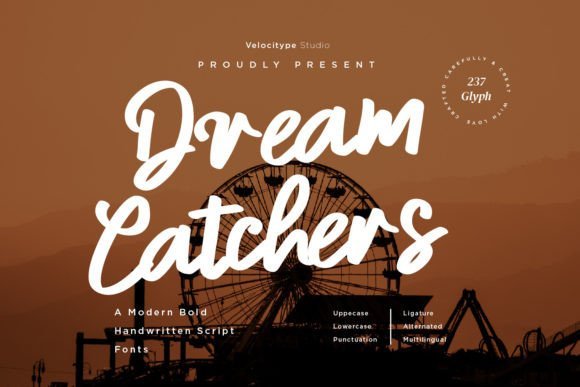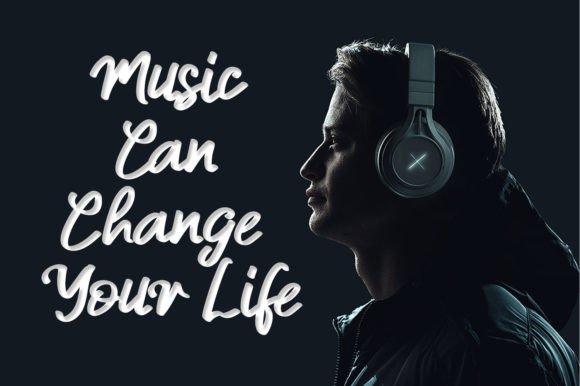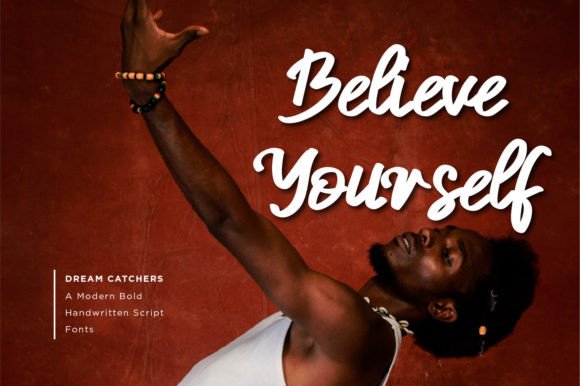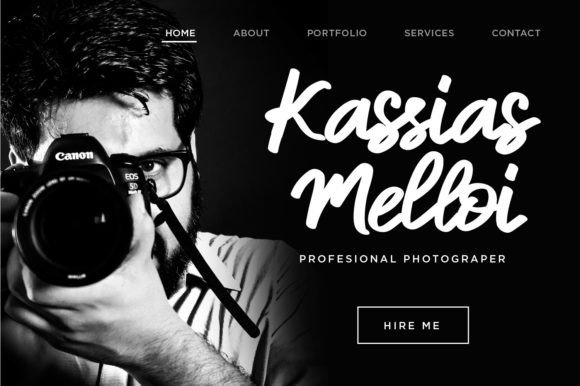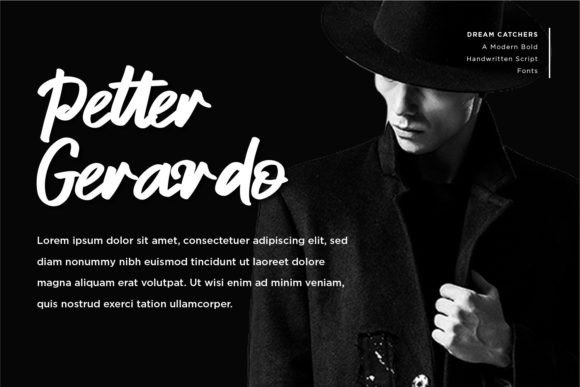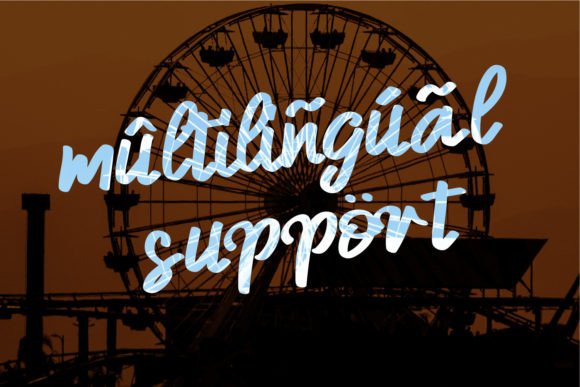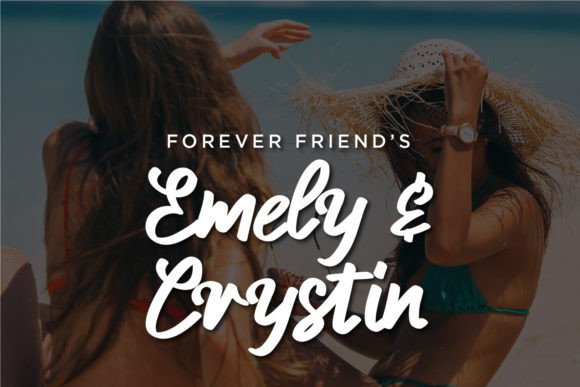
Let Your Dreams Take Flight: Introducing Dream Catchers Font
Have you ever been brainstorming a new design project and suddenly, a burst of creativity hits you? The ideas start flowing, and your imagination runs wild. This is exactly the kind of moment when a special font can make all the difference.
Enter Dream Catchers Font, a modern handwritten script font that embodies the essence of whimsy and imagination. Its fluid and organic strokes create a sense of movement and playfulness, making it the perfect addition to any design. Whether you’re working on branding, packaging, or social media graphics, Dream Catchers Font adds a touch of creativity and uniqueness to your work. As a designer, you know how valuable a versatile font like Dream Catchers Font can be in bringing your ideas to life.
Dream Catchers Font Key Features
- Font Family: Dream Catchers Font, a unique and elegant script font designed for various creative applications.
- Size: The font family includes multiple weights and styles, ranging from Light to Extra Bold, making it suitable for various text sizes.
- Unique Characteristics: Features a mix of handwritten and calligraphic elements, giving it a personal and artistic feel.
Dream Catchers Font Review
I recently had the chance to work with the Dream Catchers Font, and I must say it’s been an interesting experience. There are definitely some aspects that I appreciate.
- Unique design: The Dream Catchers Font has a distinctive, hand-drawn feel that sets it apart from more traditional fonts.
- Good for creative projects: The font’s whimsical nature makes it perfect for use in creative projects, such as children’s books or advertising campaigns.
- Customization options: The font offers a range of customization options, including color and size adjustments.
- Legibility issues: While the font looks great at larger sizes, it can be difficult to read at smaller sizes due to its intricate design.
- Limited font weights: The font only comes in a few weights, which can limit its versatility in certain design projects.
The Dream Catchers Font is a solid choice for designers looking to add a touch of whimsy to their projects. While it may have some limitations, its unique design and customization options make it a valuable asset in the right situations.
The Dream Catchers Font is ideal for creating whimsical and mystical designs. Some common use cases include:
- Magical and mystical branding
- Whimsical invitations and party decorations
- Boho-chic and eclectic design projects
For the most striking results, use the Dream Catchers Font in combination with dreamy colors and textures.
The Great Vibes Font is a beautiful, elegant script font that is perfect for adding a touch of sophistication to your designs. It is great for use in titles, headings, and other areas where a flowing, handwritten feel is desired.
Compared to Dream Catchers Font, Great Vibes Font has a more refined and polished look, making it suitable for a wider range of design applications.
The Carolyna Pro Font is a modern, elegant script font that is perfect for use in titles, headings, and other areas where a sophisticated, high-end feel is desired. It is great for use in fashion, luxury, and other design applications where a touch of elegance is needed.
Compared to Dream Catchers Font, Carolyna Pro Font has a more modern and refined look, making it suitable for use in a wider range of design applications.
Carolyna Pro Font is slightly more modern and the script style is more uniform compared to the Dream Catchers Font, which has a more distressed look.